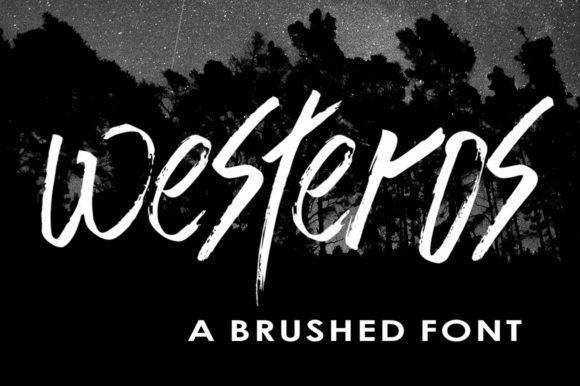
Embark on a typographic adventure with Westeros, a captivating script font that will unleash your creativity like never before. Crafted by the masterful hands of studioguntur, this font is a symphony of bold strokes and elegant curves, expertly designed to ignite your imagination.
With Westeros, prepare to elevate your digital creations to new heights. Its vigorous personality and contemporary flair will inject a touch of intrigue and sophistication into any project, from captivating social media posts to alluring website designs. Let your words dance across the screen with the mesmerizing allure of Westeros, leaving an unforgettable impression on your audience.
Unleash the power of expression with Westeros. Its fluid strokes and dynamic energy will empower you to convey a myriad of emotions, from heartfelt sincerity to playful exuberance. Whether you're crafting heartfelt love letters, designing eye-catching logos, or creating captivating marketing materials, Westeros will become your trusted companion, amplifying your message with unparalleled charisma.
Embrace the endless possibilities that Westeros holds. Its versatile nature effortlessly adapts to a diverse range of design aesthetics, allowing you to seamlessly integrate it into your creative masterpieces. From vintage-inspired branding to modern and edgy campaigns, Westeros possesses the remarkable ability to transform your vision into a captivating reality.
Experience the unparalleled beauty and functionality of Westeros, a font that will ignite your passion for typography. Immerse yourself in a world of limitless creativity, where every word you write becomes a testament to your unique style and vision. Download Westeros today and embark on a typographic journey that will empower you to create captivating designs that leave a lasting impression.